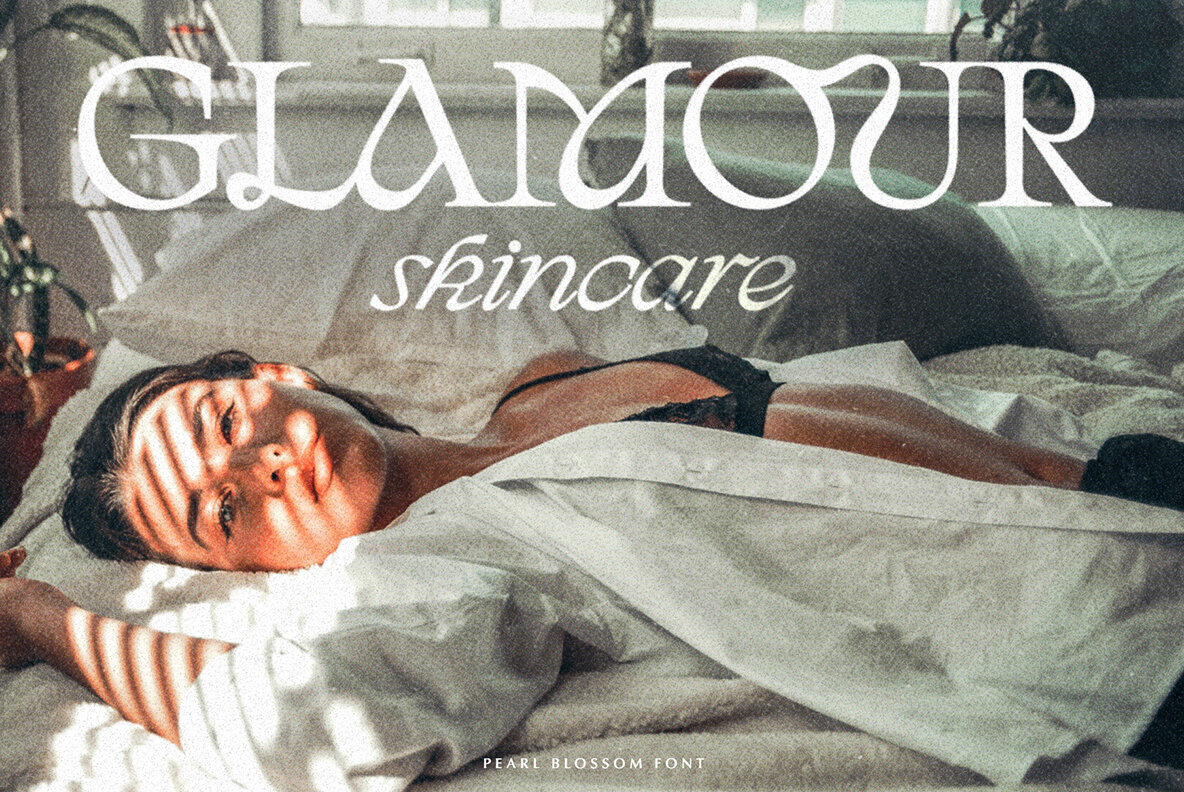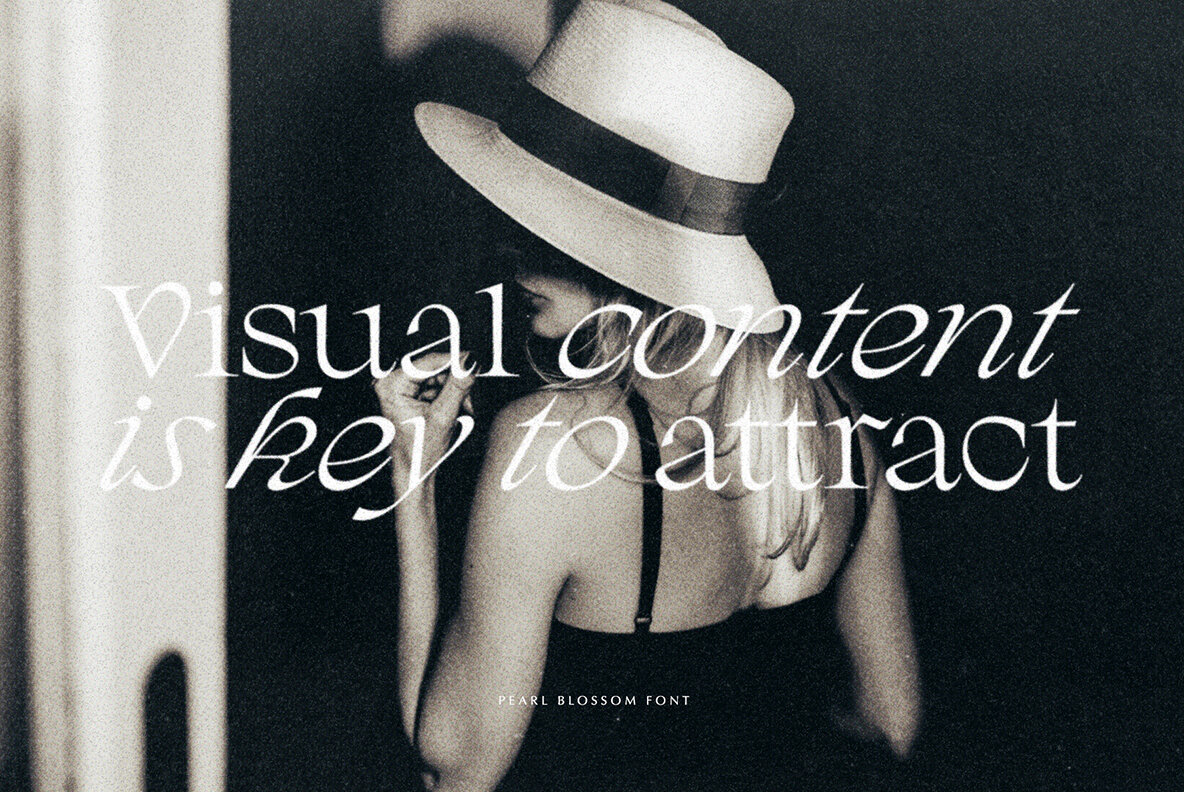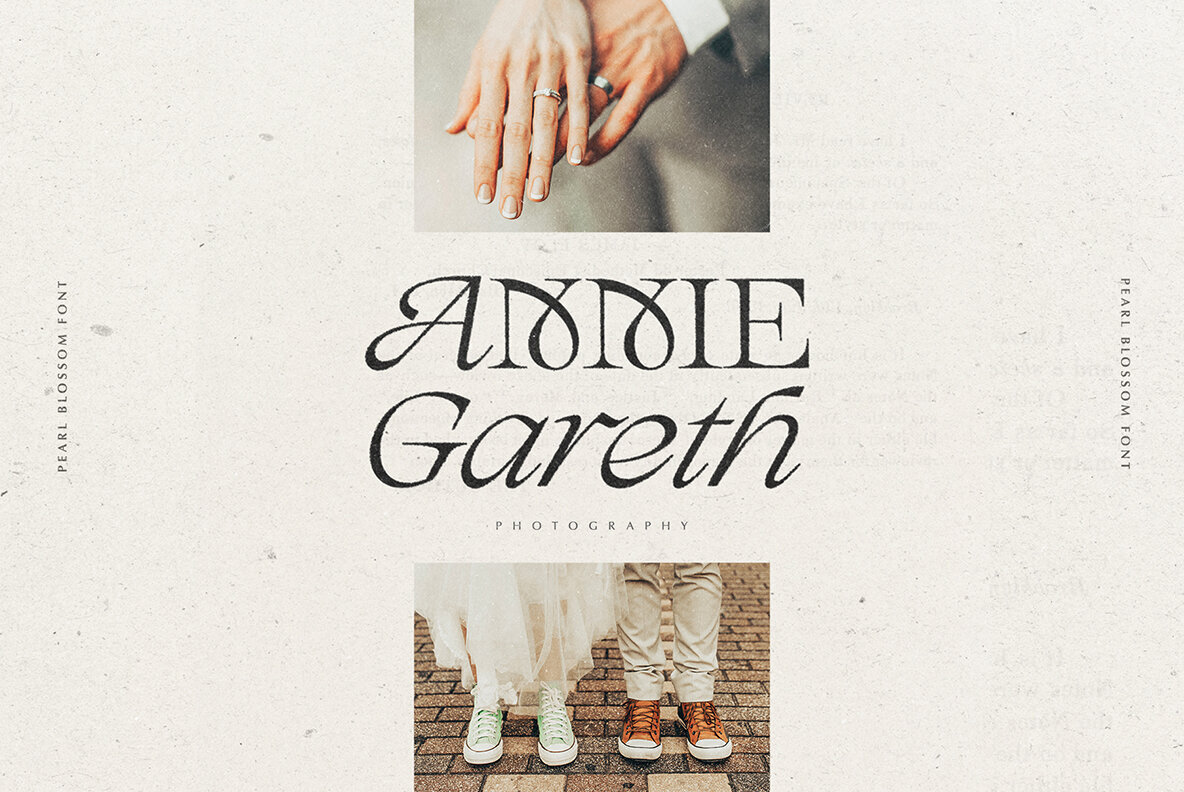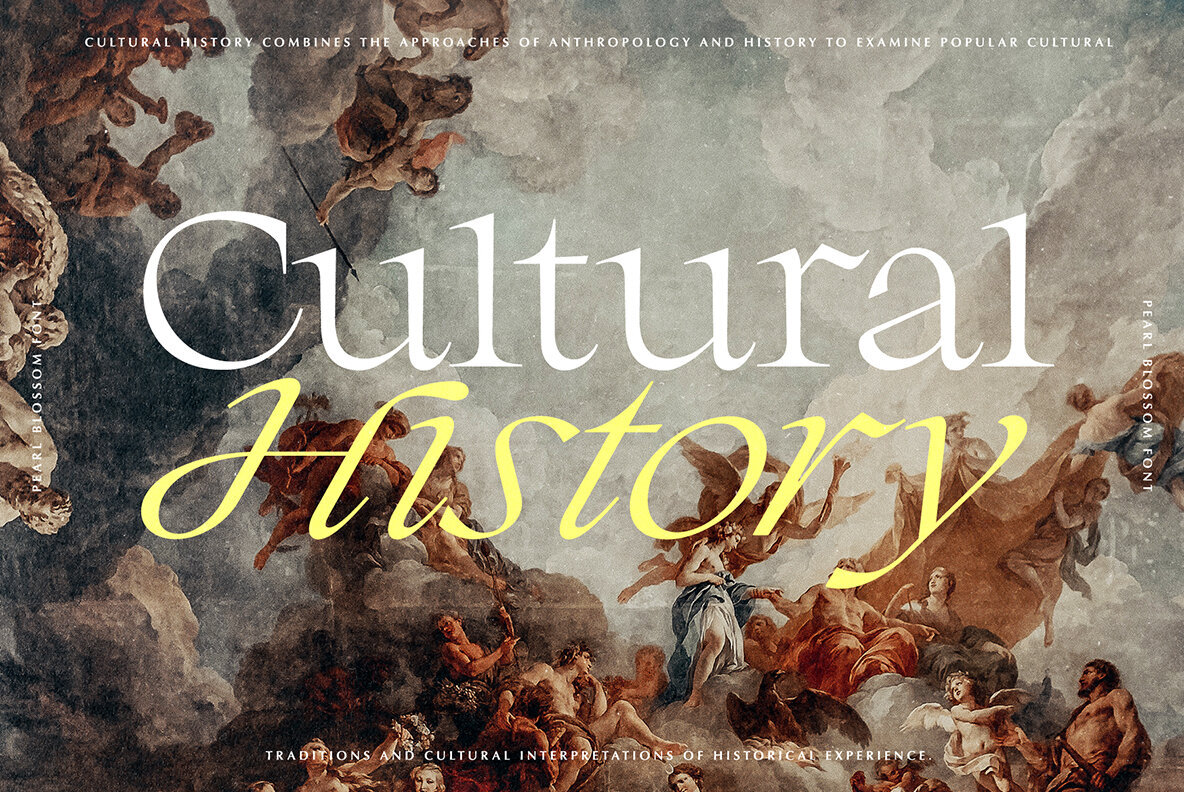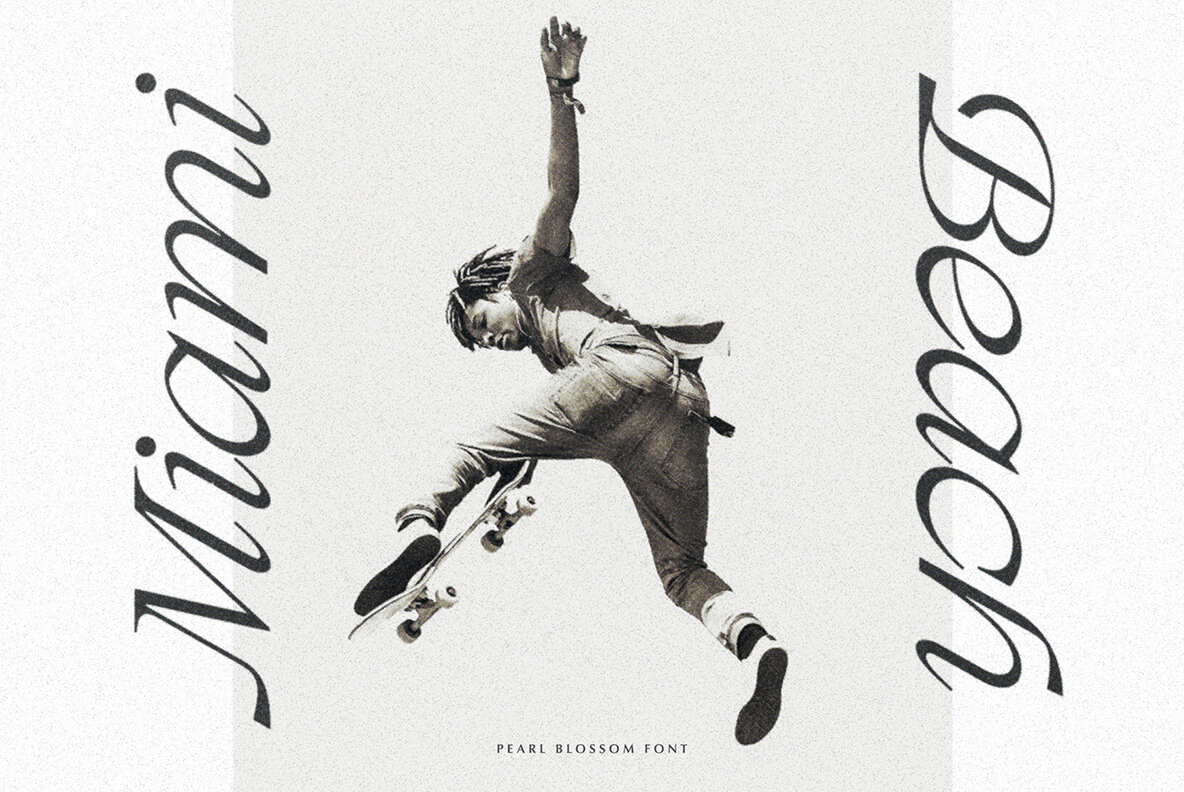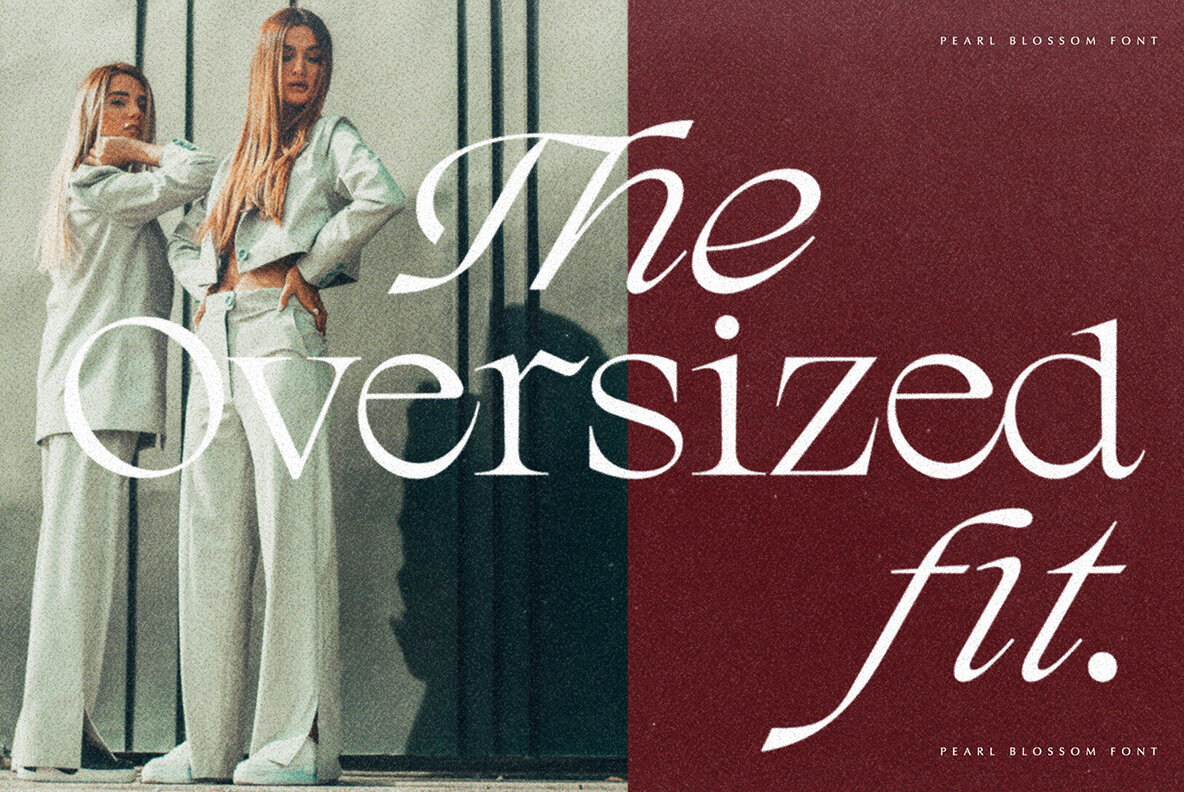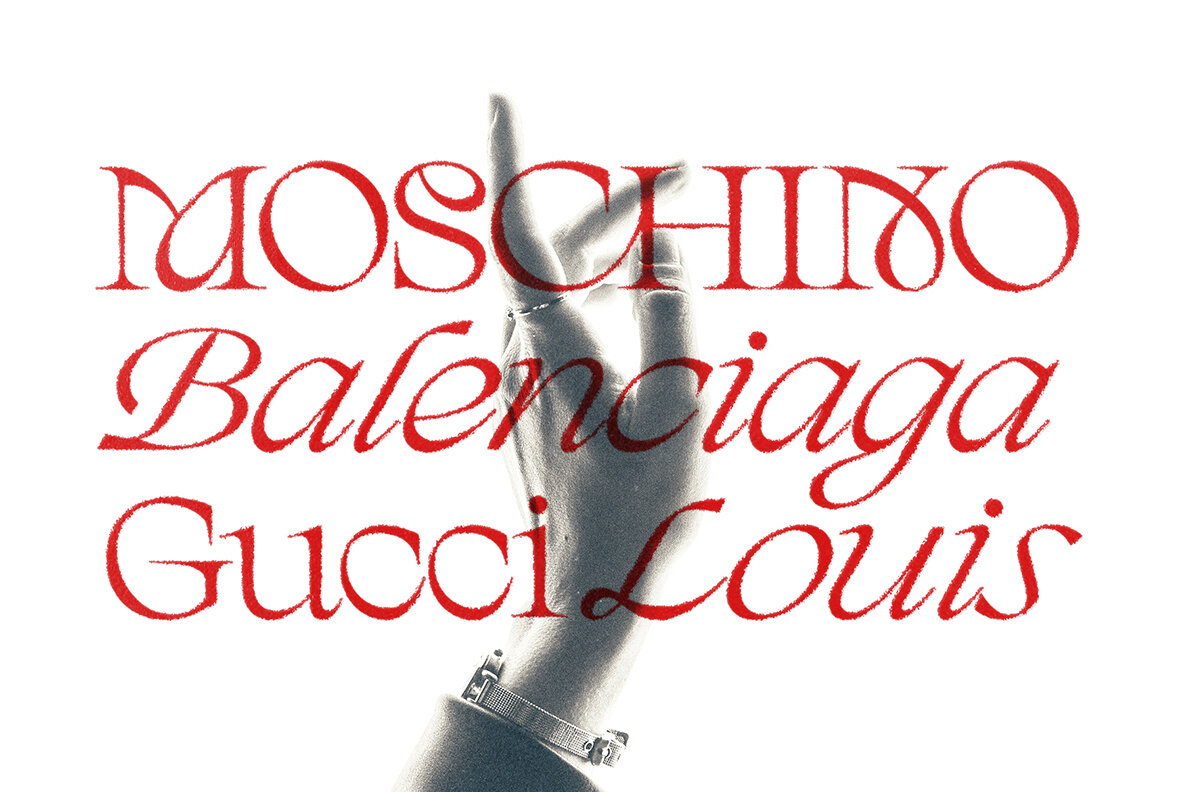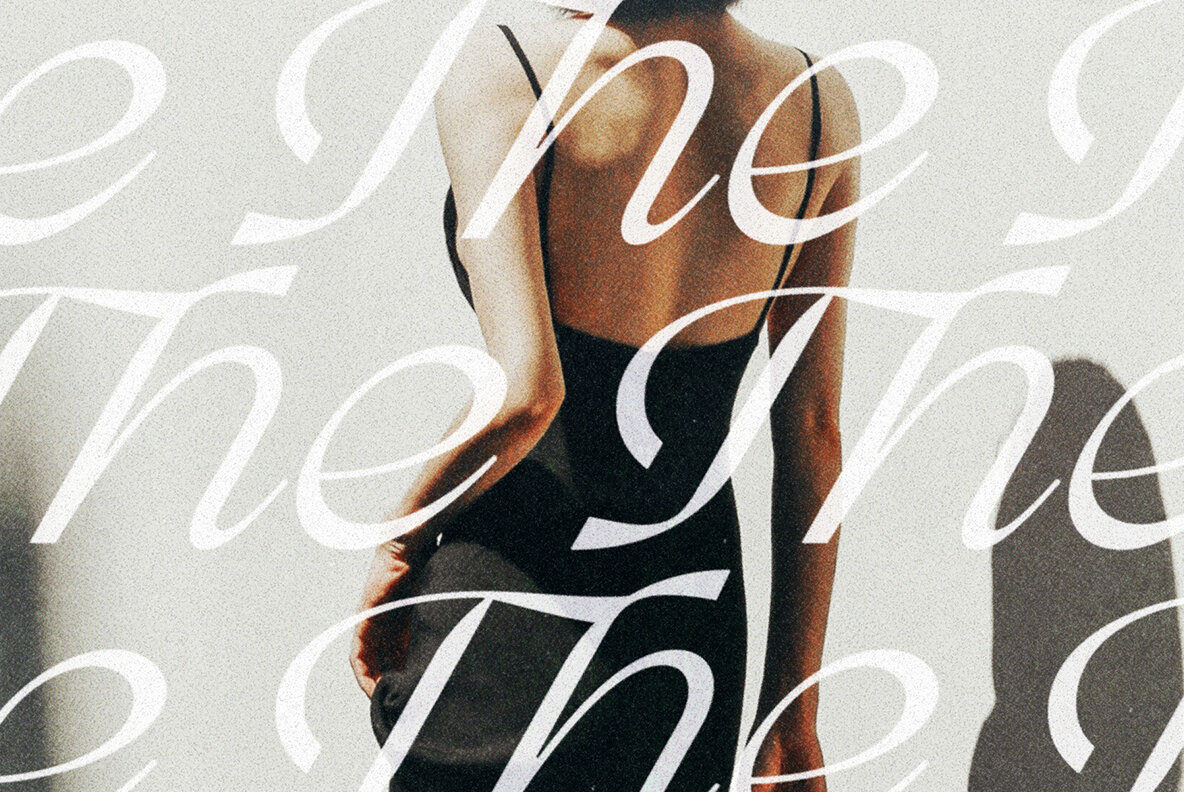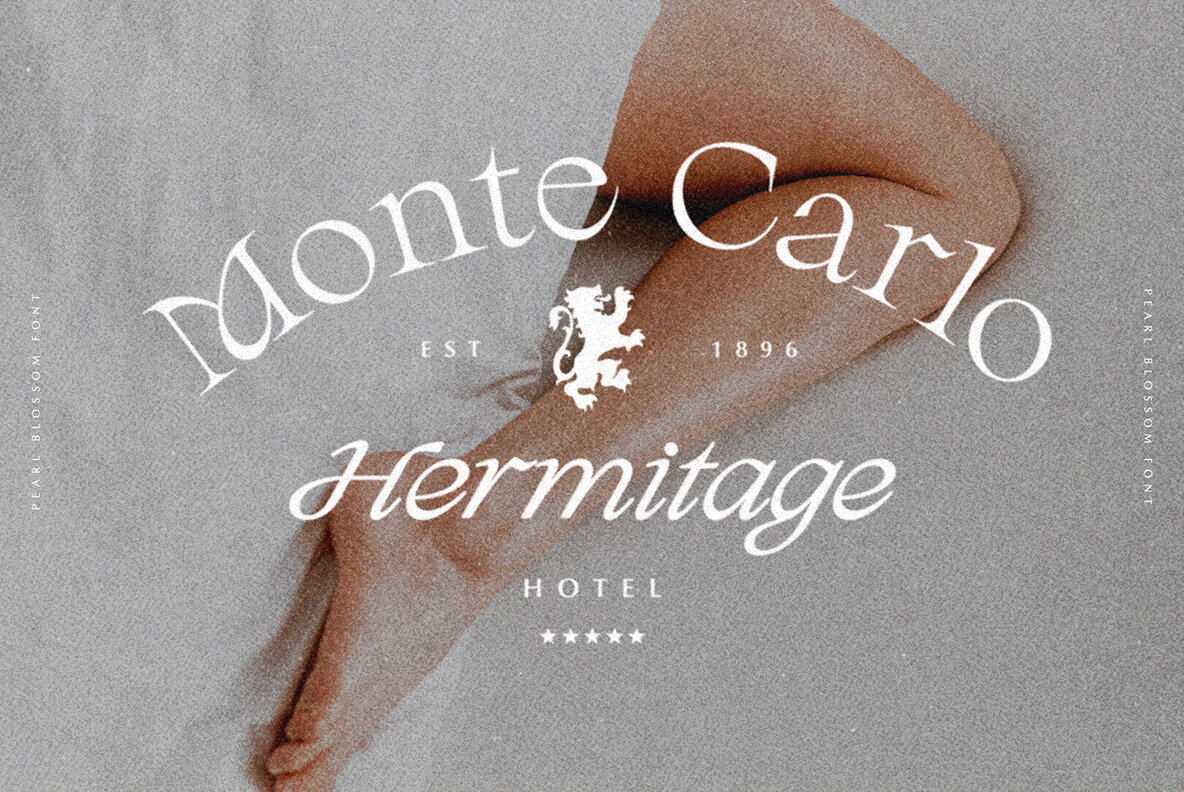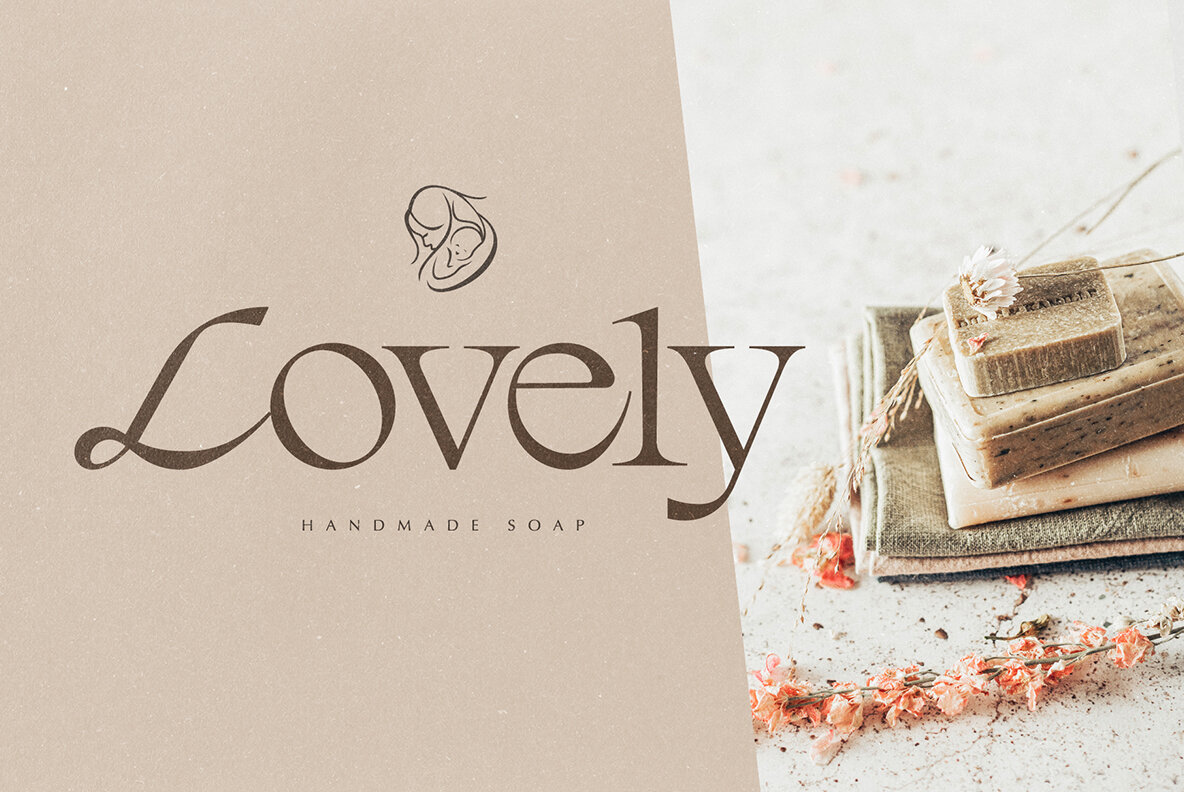
Pearl Blossom Font
Pearl Blossom, an exquisite serif typeface by Ivan Rosenberg, imbues your design projects with a modern and refined aesthetic. This typeface seamlessly balances sophistication with contemporary appeal, making it an excellent choice for headings, logos, websites, and brand identities. Notably, Pearl Blossom offers both regular and bold versions, complemented by a calligraphic italic that enhances its versatility.Pearl Blossom: Elegance in Serif Typography